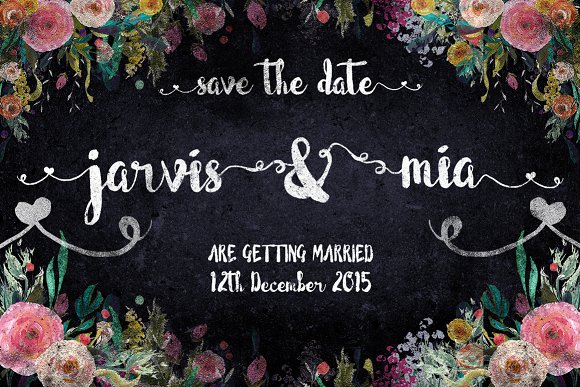
Journey into the realm of elegance and sophistication with Blushingly, an enchanting script font family. Curated by the skilled artisans at Creativeqube Design, this font collection exudes grace and refinement, transforming your creative projects into captivating works of art.
Blushingly's delicate strokes and flowing curves dance across the page, evoking a sense of timeless romance and charm. Each letter is meticulously crafted with love and attention to detail, ensuring a harmonious balance between legibility and aesthetics. This beautiful font family adds a touch of allure and femininity to any design, making it the perfect choice for creating stunning logos, invitations, greeting cards, and other projects that demand an aura of elegance.
With Blushingly, you have the power to make a statement and leave a lasting impression. Its versatility extends beyond traditional applications, allowing you to infuse your digital creations with a touch of flair. Whether you're designing social media posts, crafting eye-catching website headers, or adding a personal touch to your digital artwork, Blushingly will elevate your designs to new heights of sophistication.
Embrace the artistry of Blushingly and let your creativity soar. Its timeless charm and versatility make it a must-have for any designer seeking to add a touch of elegance and sophistication to their projects. Download Blushingly today and embark on a journey of boundless creative expression.